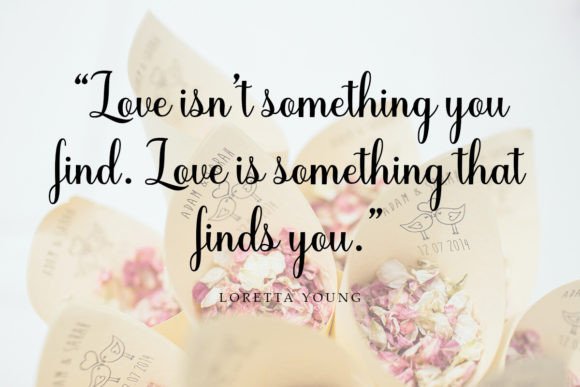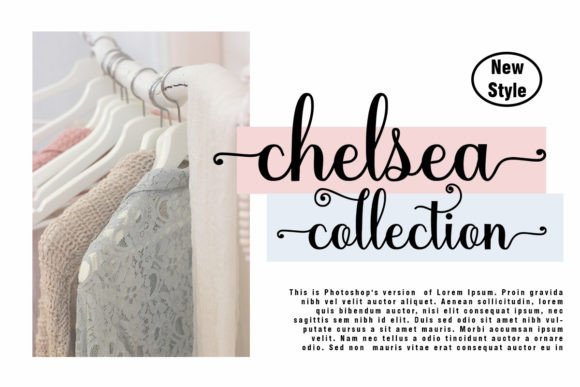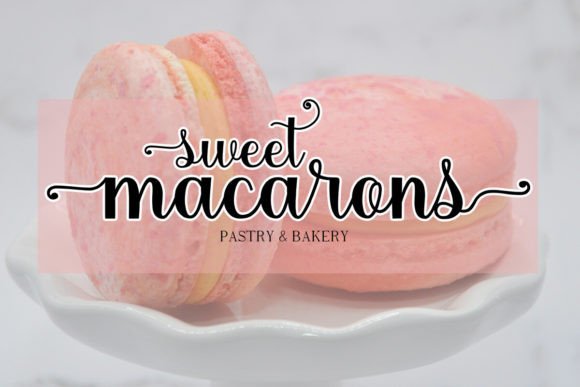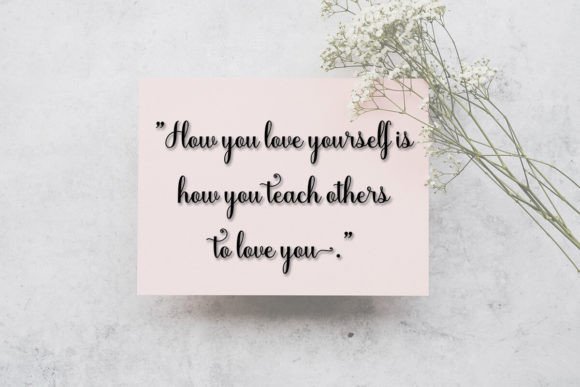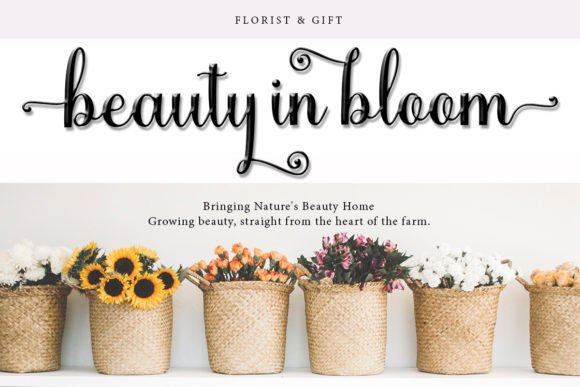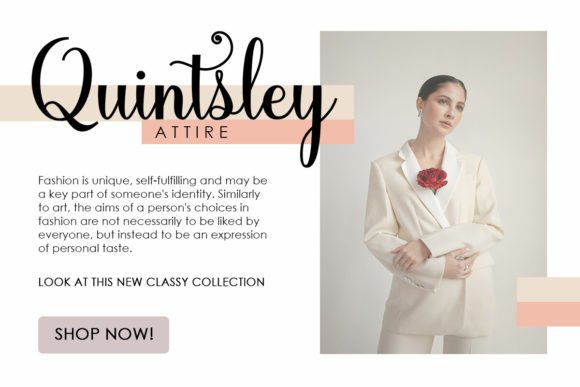
The Glenfield Font: A Hand-Brushed Beauty for Creative Projects
I’ll never forget the time I was working on a wedding invitation design project, and my client asked for a font that would make their special day feel like a fairytale. I scoured the internet for the perfect font, but nothing seemed quite right. That was until I stumbled upon the Glenfield Font. With its bold, hand-brushed strokes and irregular baseline, it was love at first sight! In this article, I’ll share my experience with the Glenfield Font, its features, and how to make the most of it in your creative projects.
What is the Glenfield Font?
The Glenfield Font, also known as Glenfield Script Typefaces, is a beautiful hand-brushed font created with a brush and ink. Its bold and irregular baseline gives it a unique, organic feel that’s perfect for designs that require a personal touch. The font comes with a complete set of lowercase and uppercase letters, alternates, ligatures, punctuation, numbers, and multilingual support.
- ✨ Unique, hand-brushed look that’s perfect for watercolor designs or lettering styles
- ✅ Complete set of lowercase and uppercase letters, alternates, ligatures, punctuation, numbers, and multilingual support
- ✅ Ideal for bold, eye-catching designs like blog headers, posters, wedding elements, and more
- ⚠️ Some users may find the font a bit too bold or overpowering for certain designs
- 🤔 Limited use on smaller font sizes, as details may get lost
The Story Behind the Glenfield Font
The Glenfield Font was designed by a team of typographers who wanted to create a font that would capture the essence of hand-brushed lettering. Inspired by traditional brush calligraphy, the font was crafted to be bold, expressive, and full of personality. Whether you’re a designer, crafter, or creative hobbyist, the Glenfield Font is sure to become a favorite in your collection.
Q: Is the Glenfield Font suitable for body text?
A: While the Glenfield Font is beautiful, it’s best suited for headlines, titles, and short paragraphs. It’s not recommended for body text, as it may be too bold or overpowering.